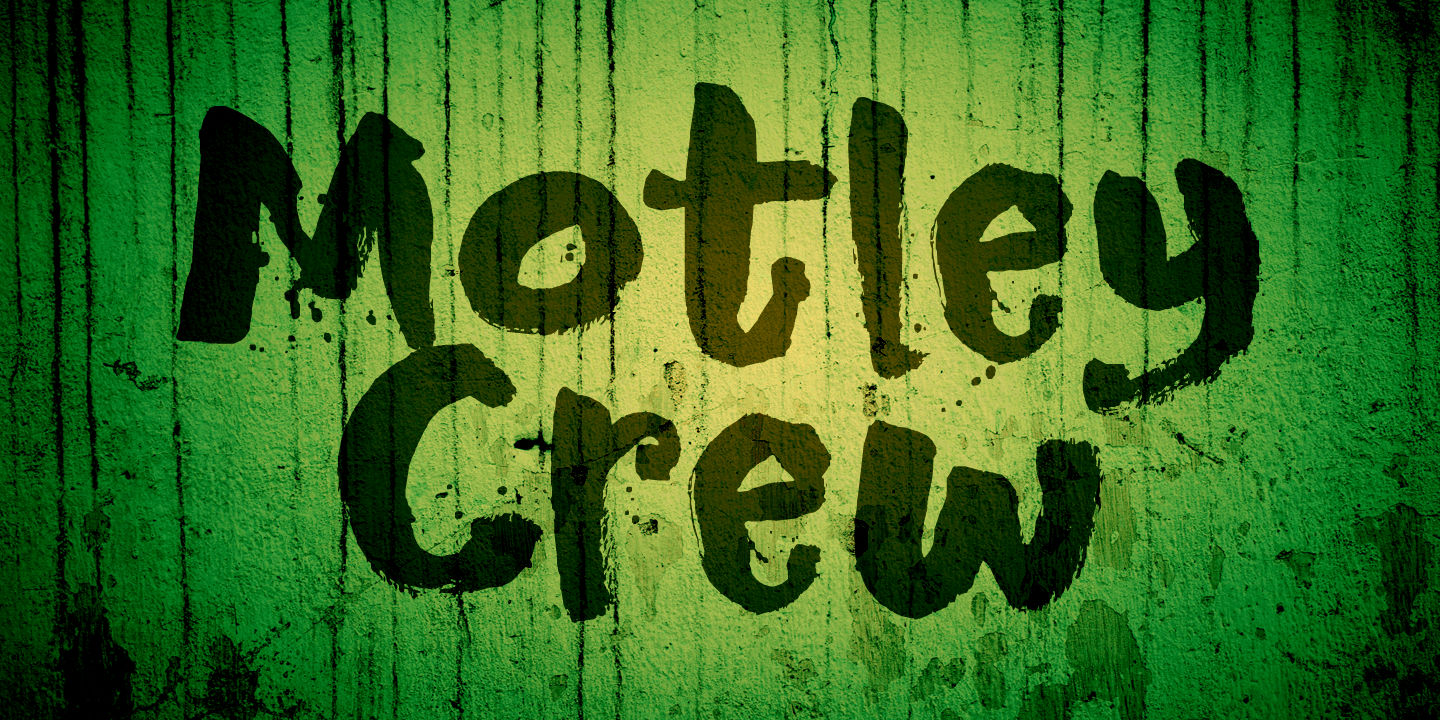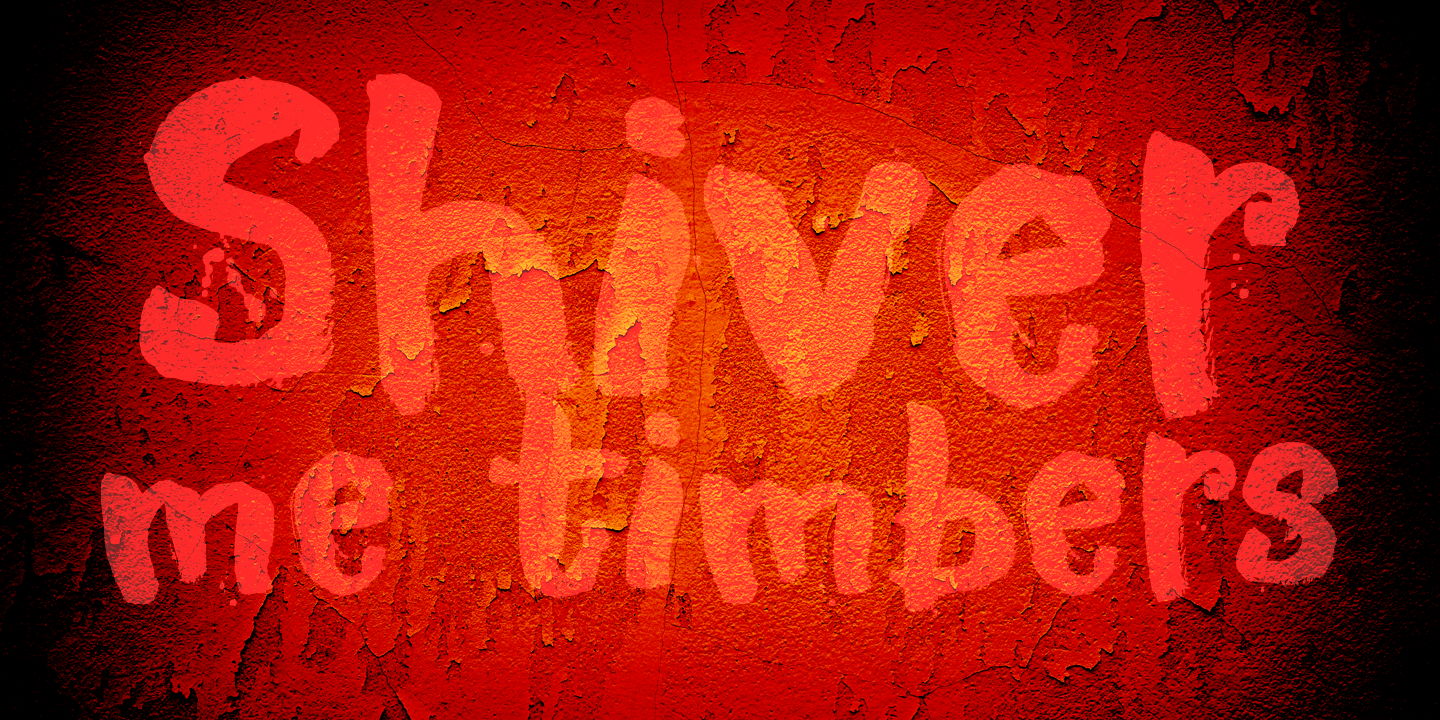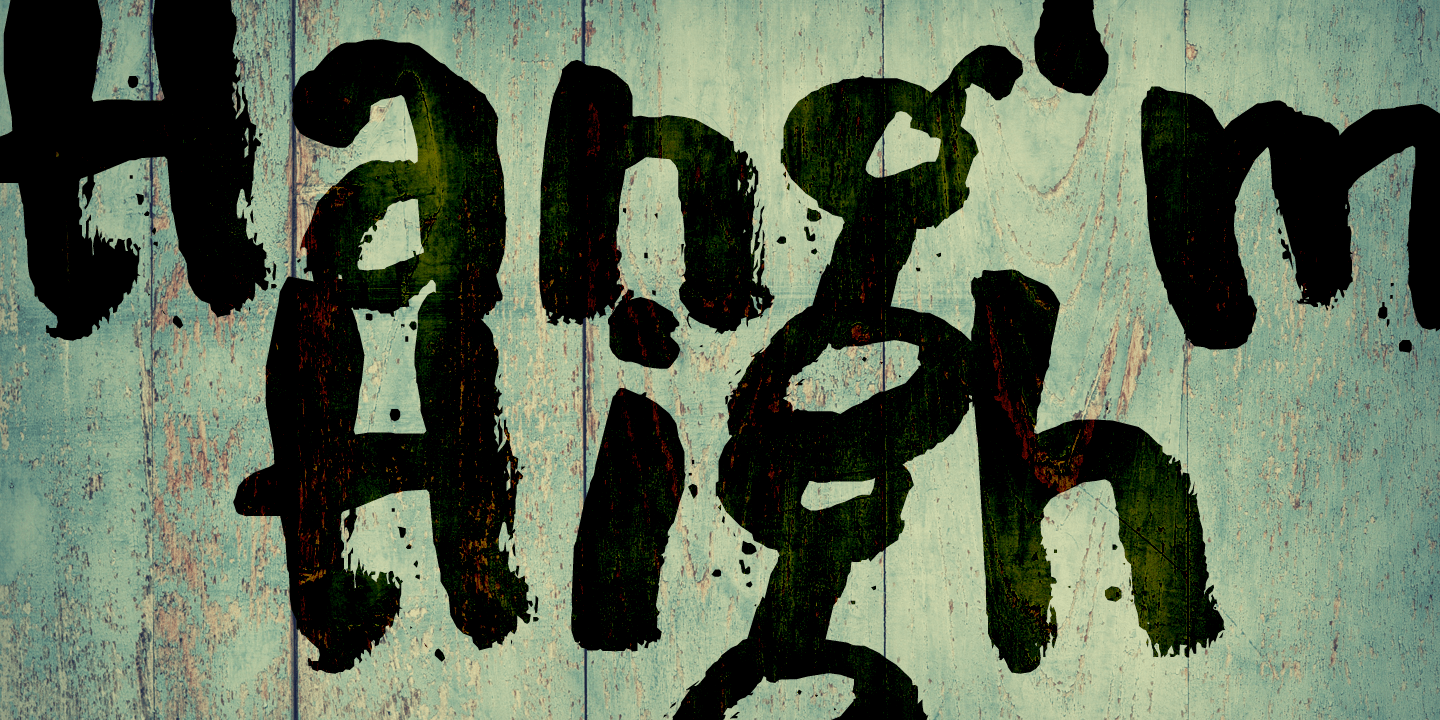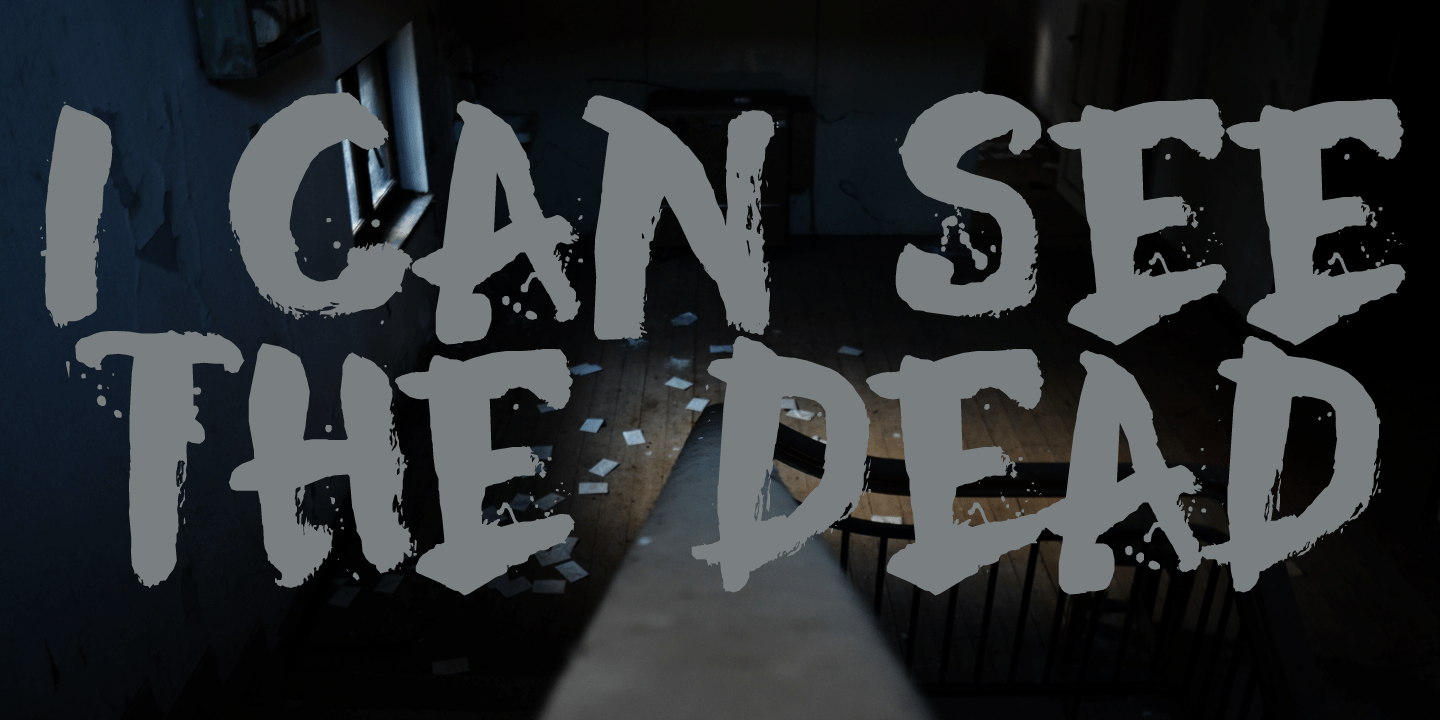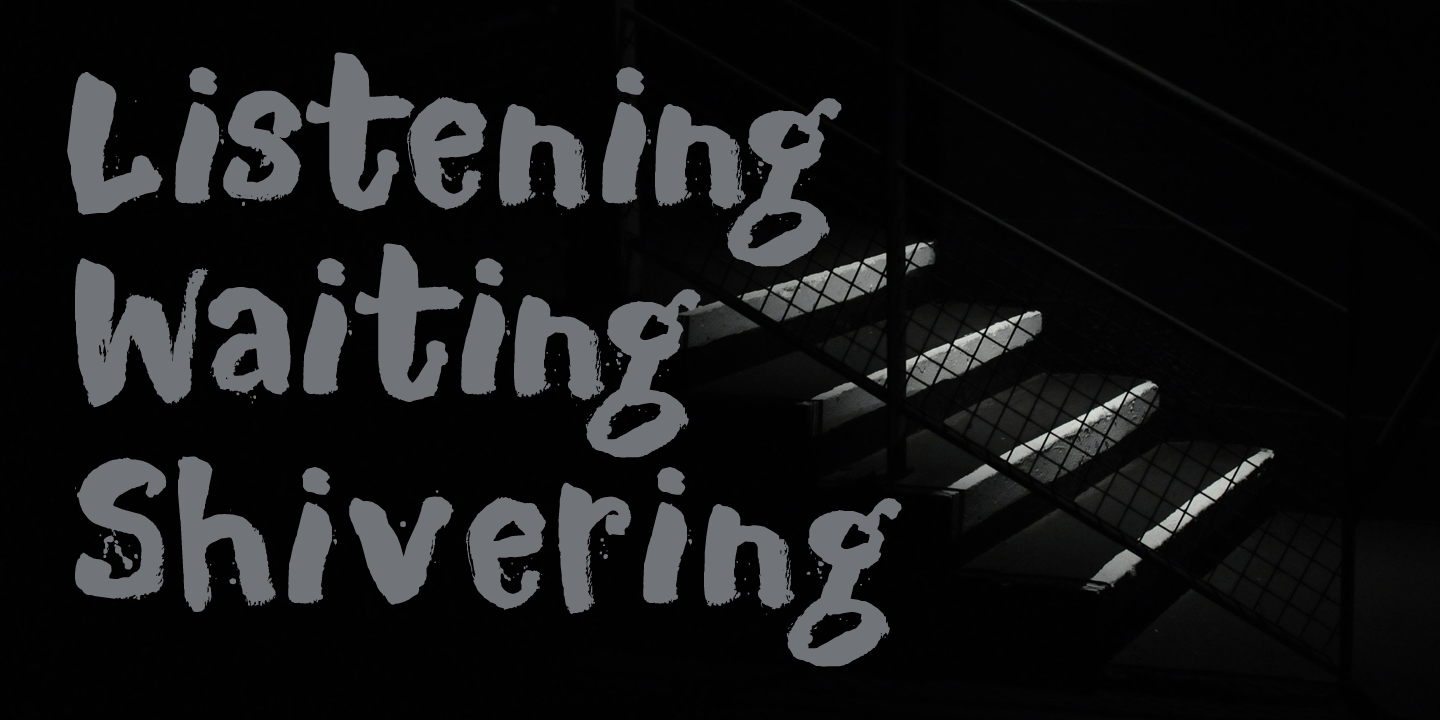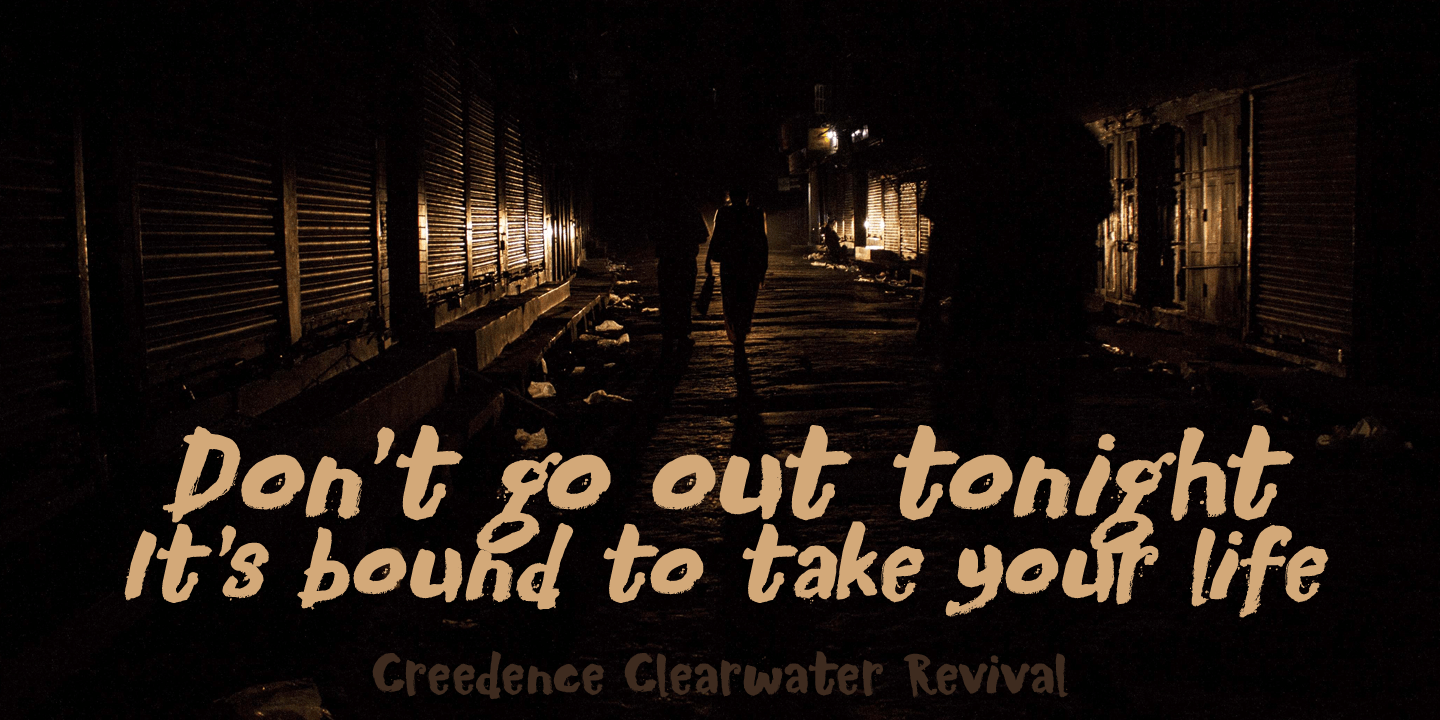
Motley Crew
Motley Crew is my last font for 2016. It is quite a lively, quirky and a little bit scary typeface, which will give your designs a little more ?joie de vivre?. It was made with a soft brush and Chinese ink. The splatter was added after I had painted the glyphs. I forgot to put away my laptop, which now looks like this font? Motley Crew wishes you all the best for the coming year - in a lot of languages, as it comes with a generous splatter of diacritics.